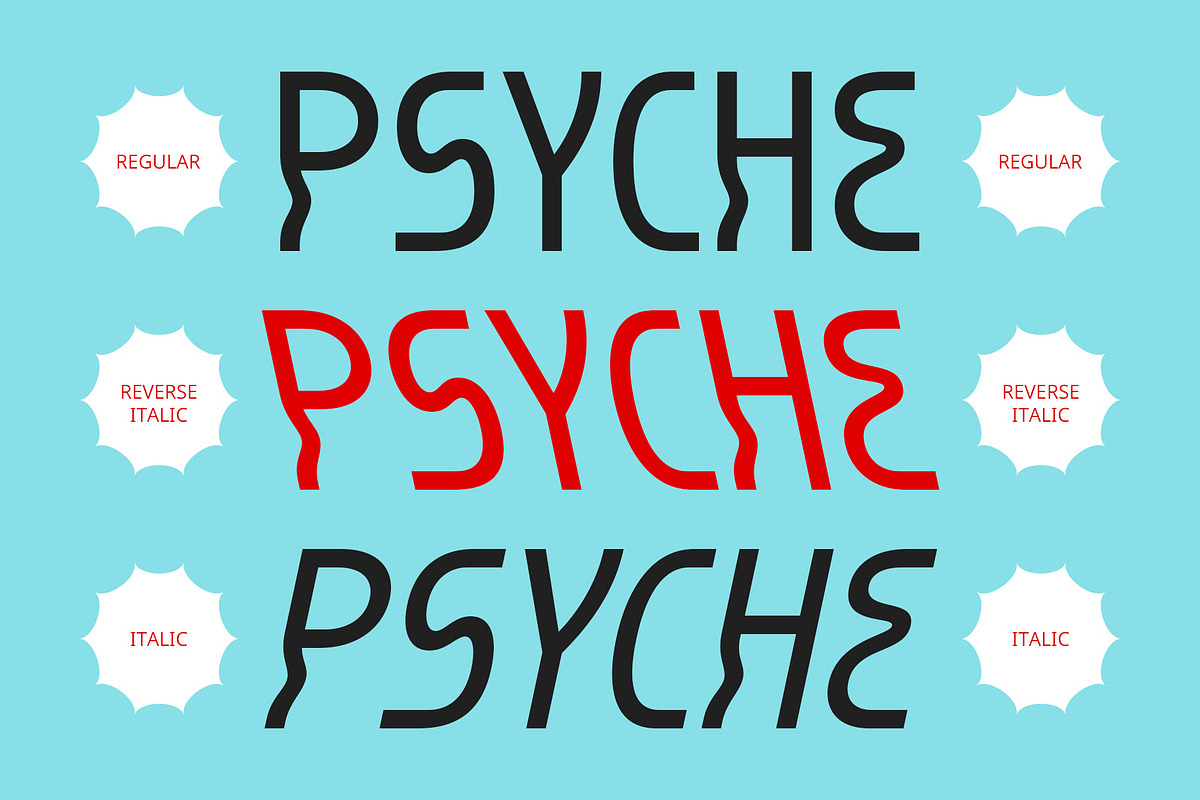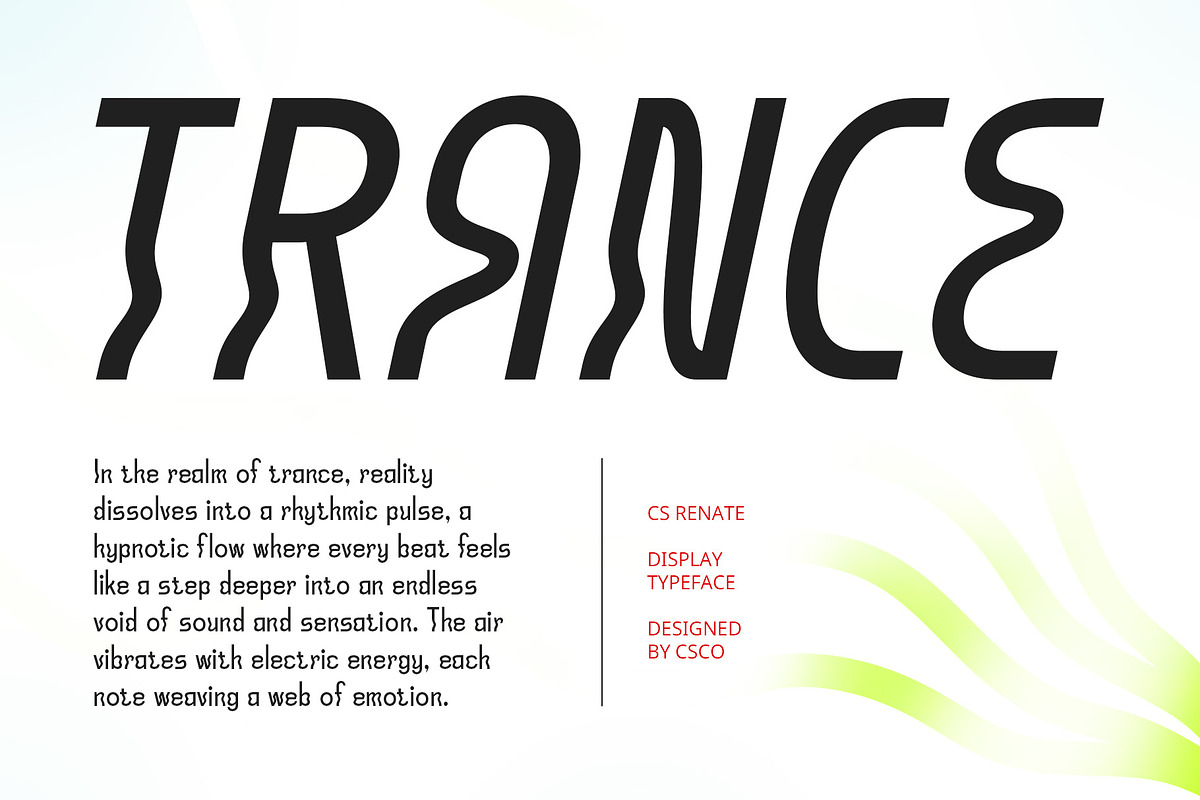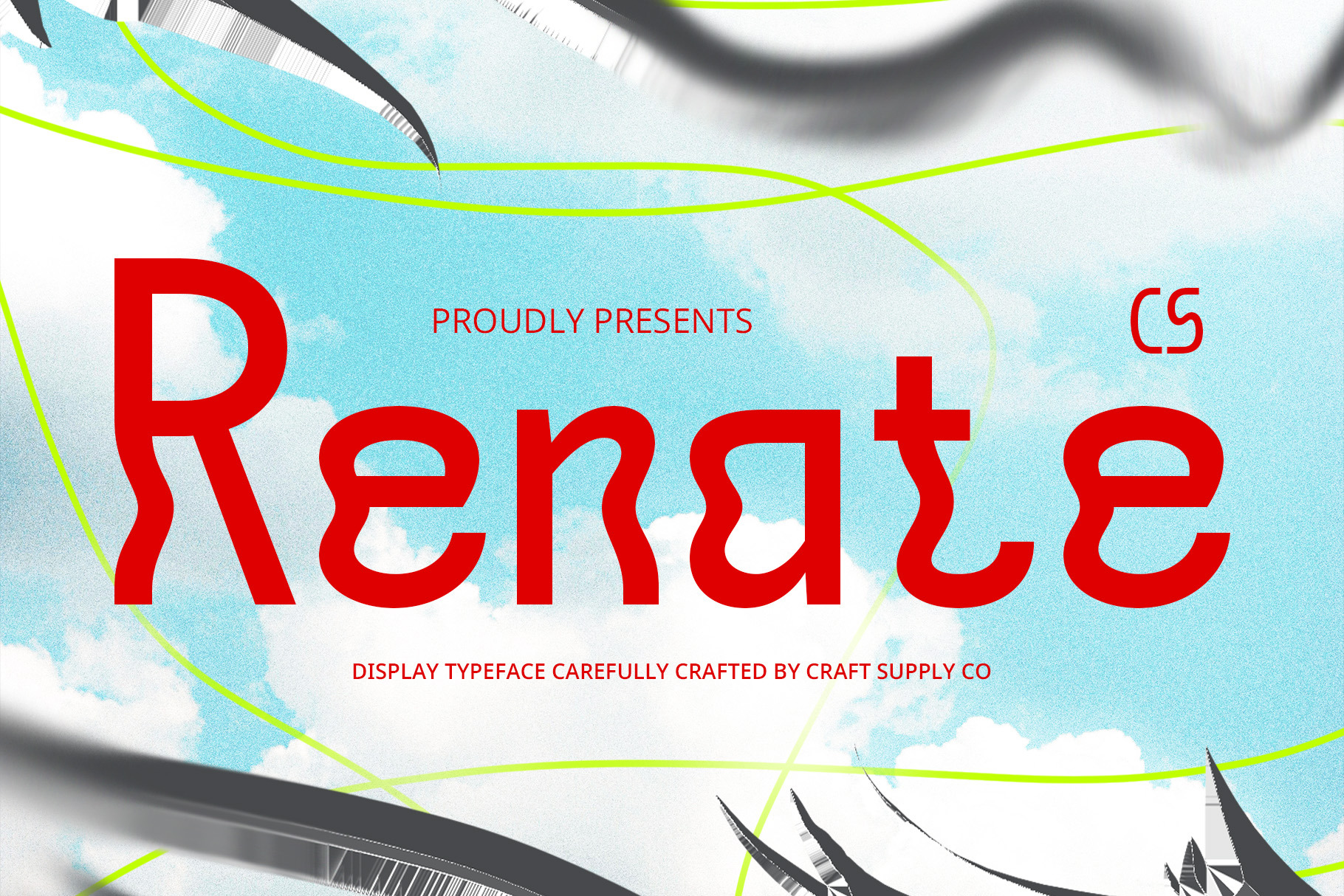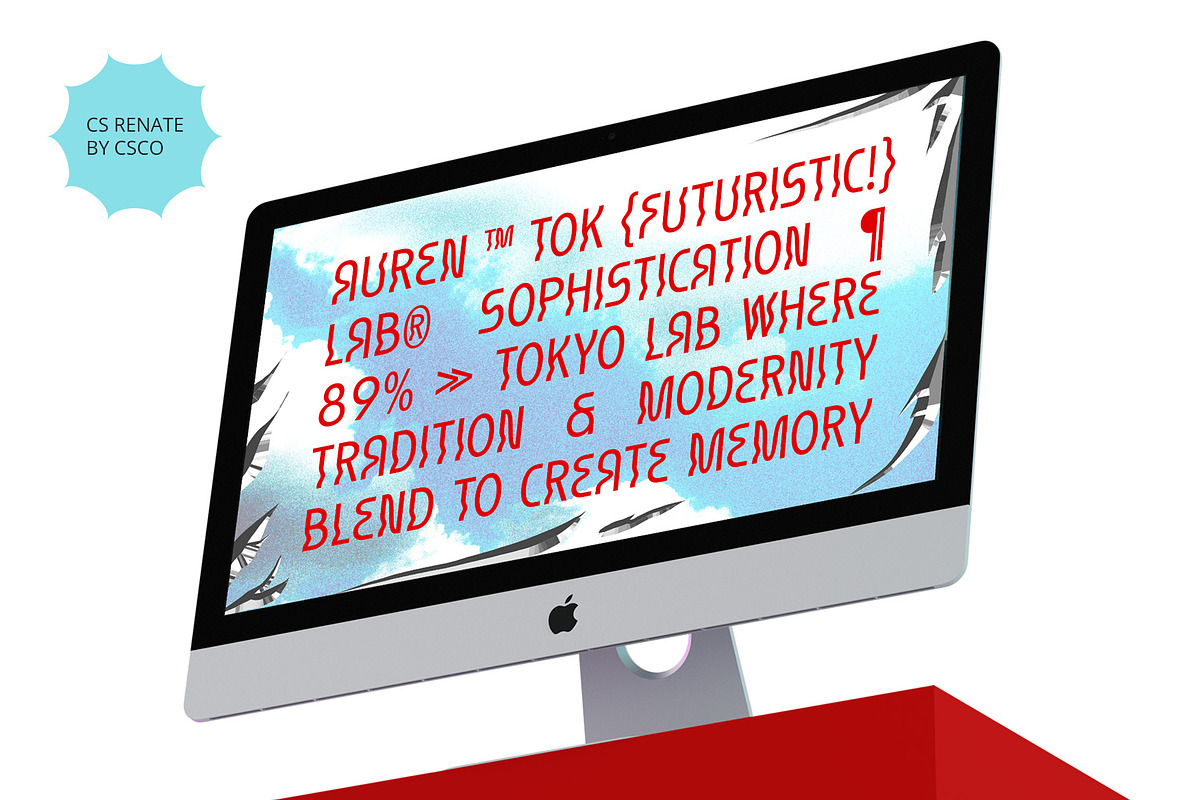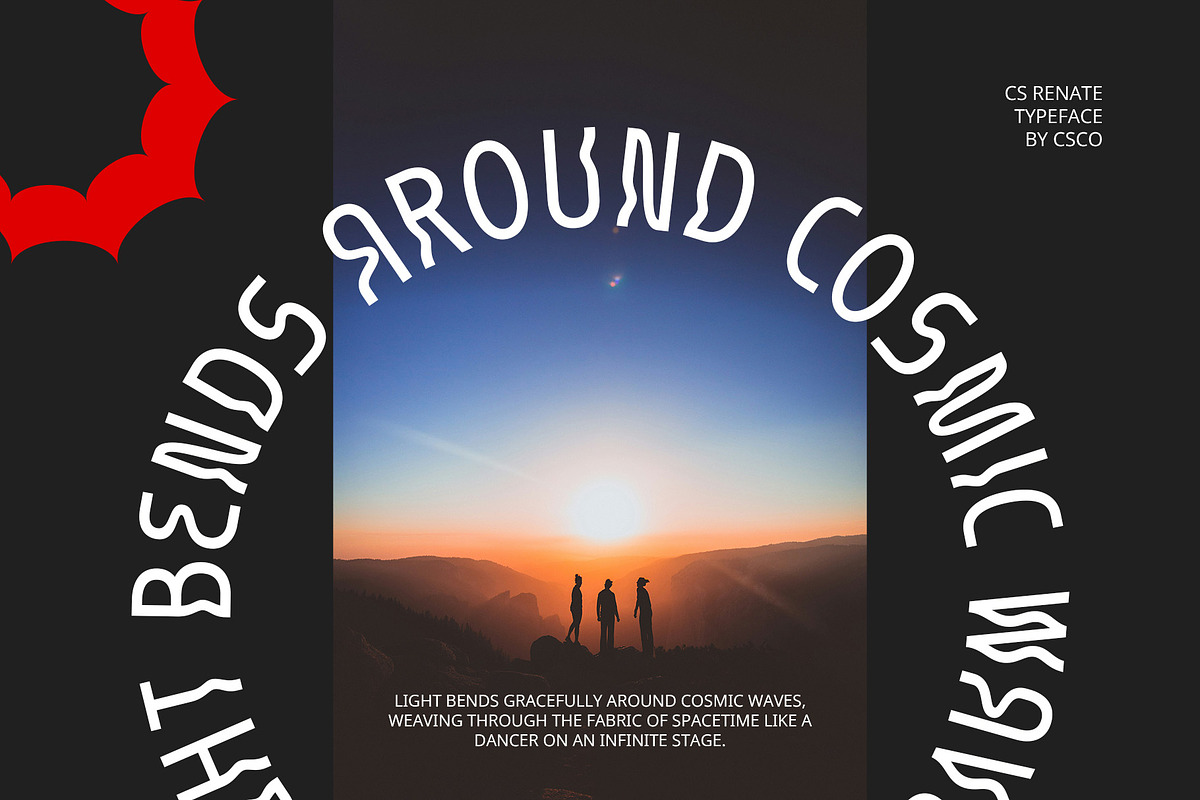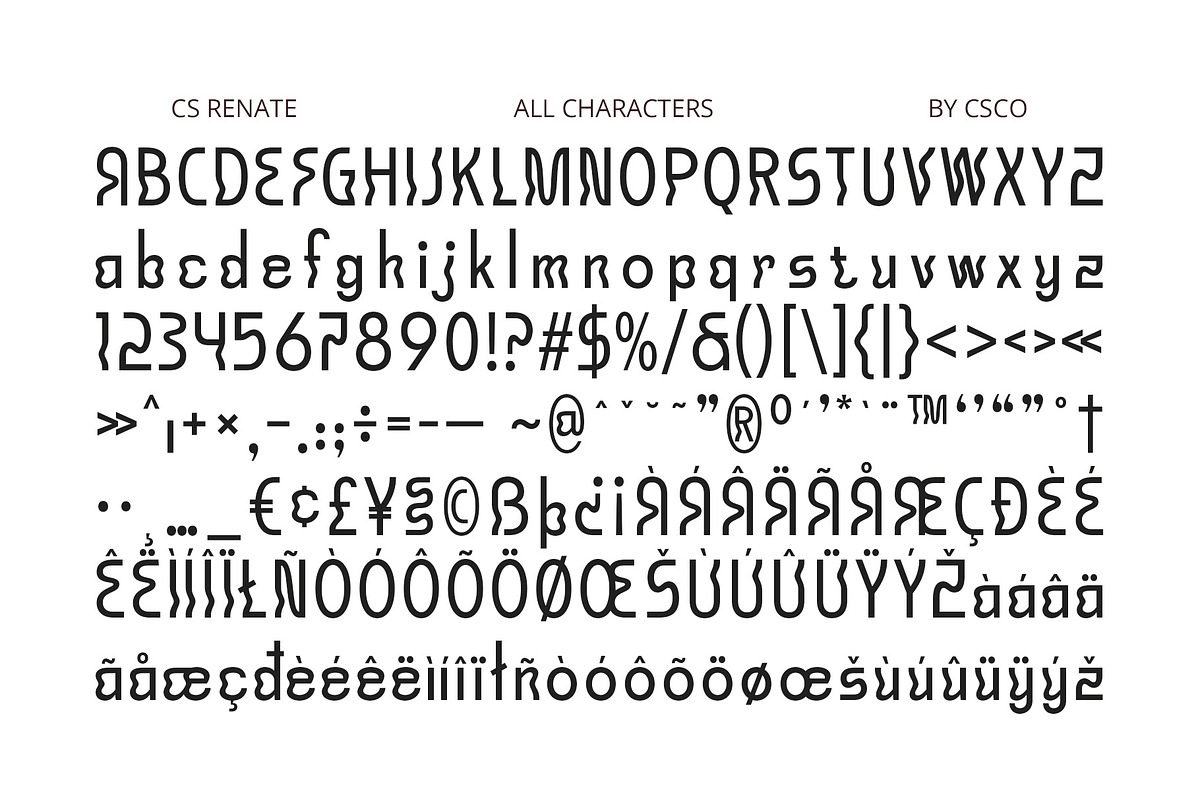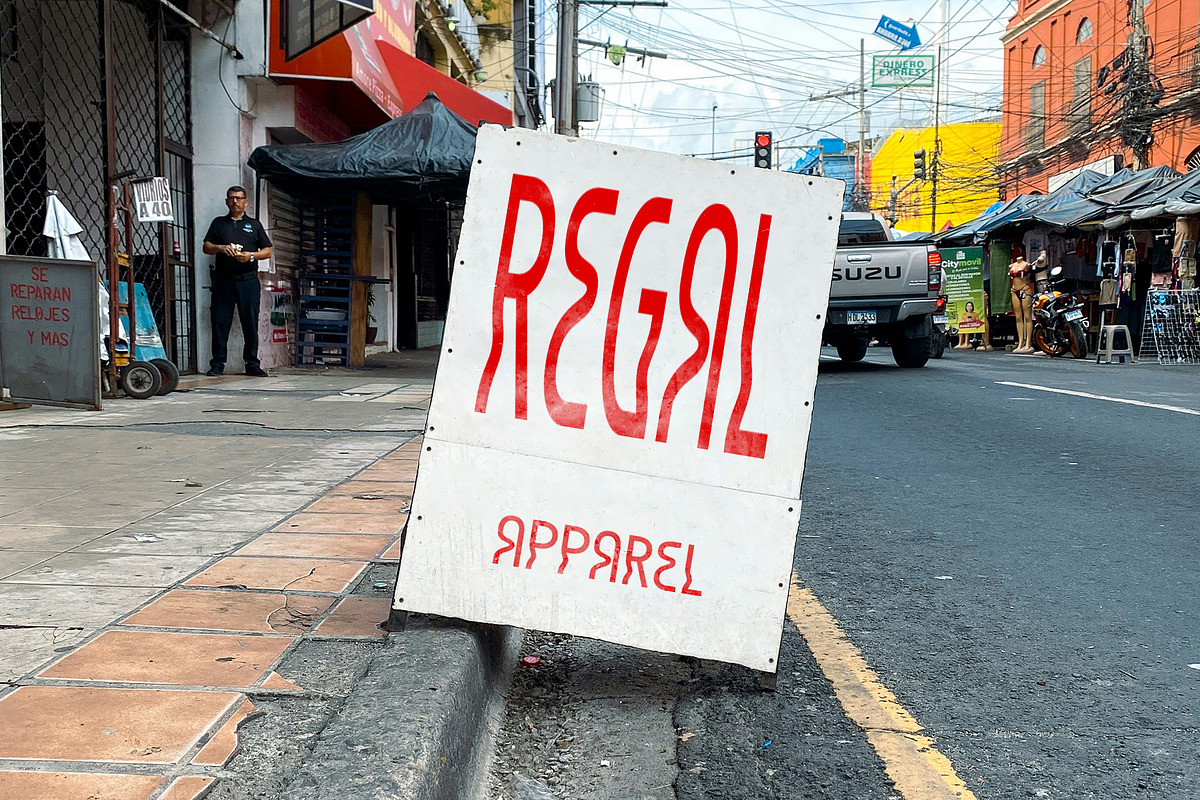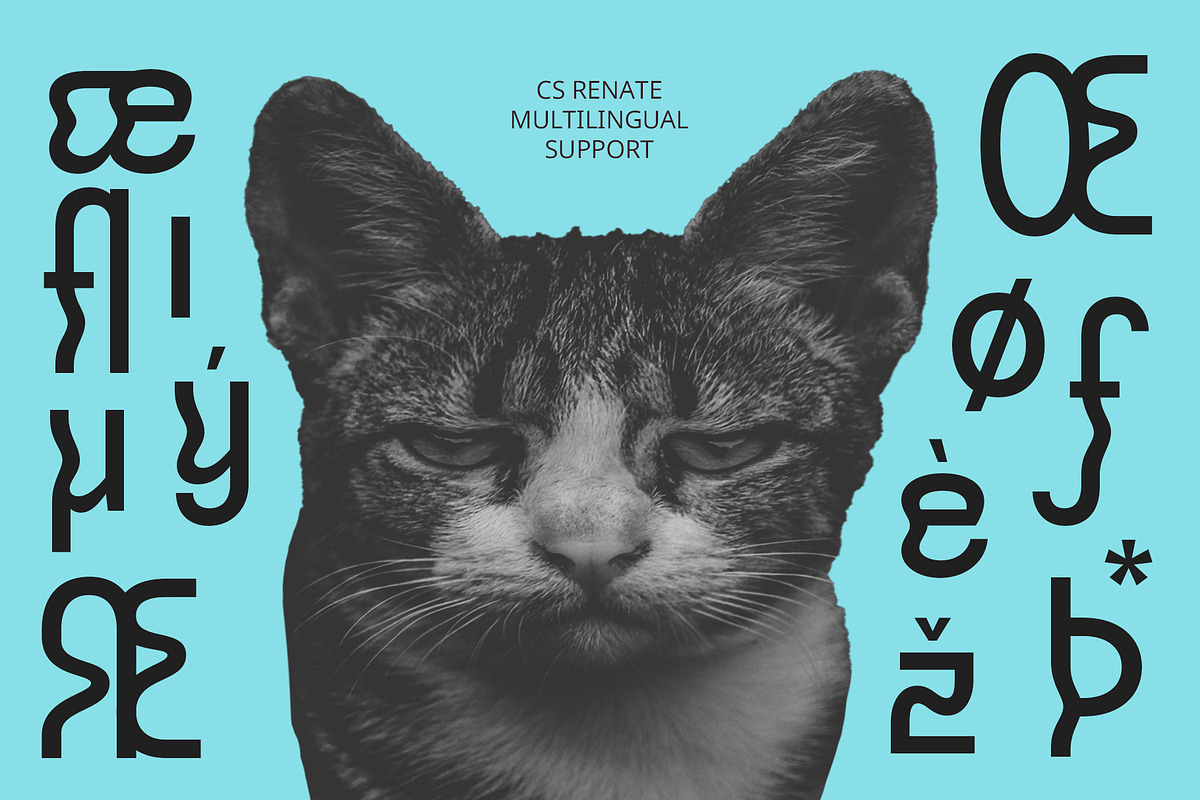
CS Renate – Trippy Font
CS Renate – Trippy and Psychedelic Display Font
A Funky, Artistic, and Bold Design CS Renate is a trippy, psychedelic display font that immerses the viewer in a world of distorted, fluid shapes and vibrant letterforms. The dynamic curves and irregular contours create a sense of visual movement, making each character feel like it’s in constant motion. This font embodies a playful, artistic vibe that draws inspiration from the colorful, mind-bending aesthetics of the psychedelic era, ideal for projects seeking to evoke a sense of creative freedom and energetic expression.
Vibrant, Distorted Shapes for Visual Impact The distorted and fluid shapes of CS Renate bring a unique, almost surreal quality to typography. The font’s flowing lines and vivid letterforms create an energetic atmosphere that pulls the viewer’s attention and keeps them engaged. Whether you’re looking to add a trippy vibe to your designs or make a bold statement.
Perfect for Creative, Playful, and Unconventional Projects CS Renate is ideal for designs that aim to stand out and embrace an unconventional approach. From music posters and album covers to vibrant promotional materials and event flyers, this font brings an undeniable cool factor to any project. Its funky and artistic style is perfect for projects targeting youthful, adventurous audiences, making it an excellent choice for anything that wants to capture attention and spread creative energy.
- CS Renate Regular
- CS Renate Italic
- CS Renate Reverse Italic